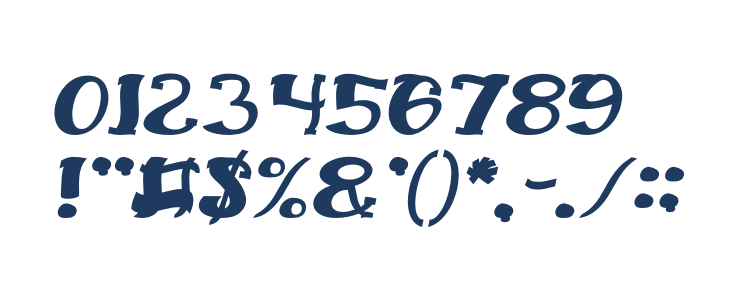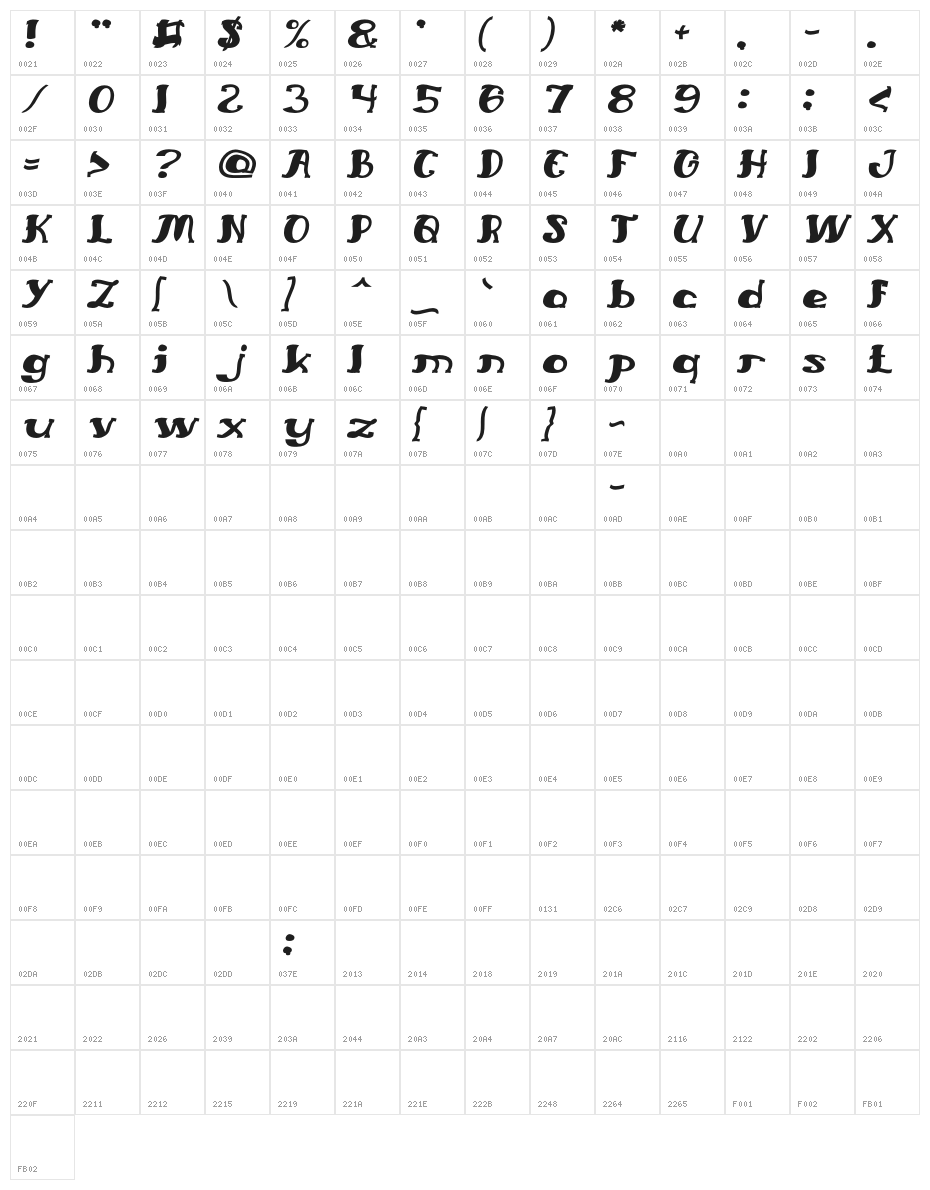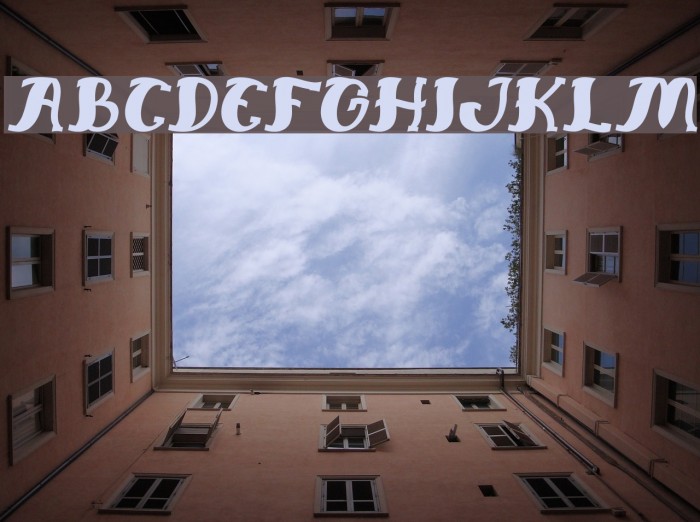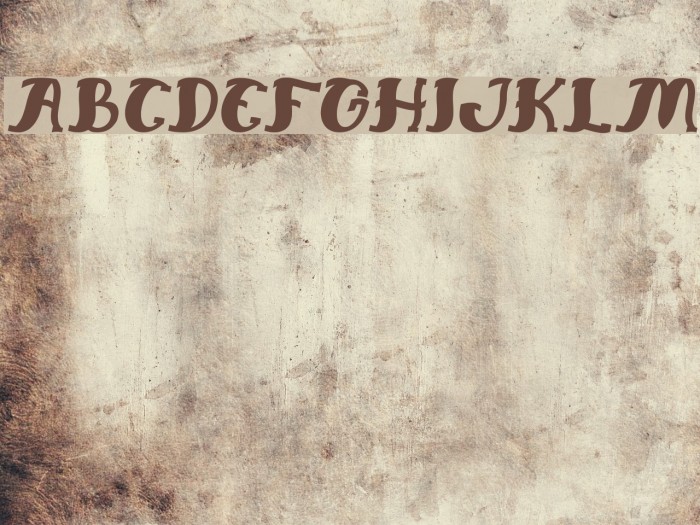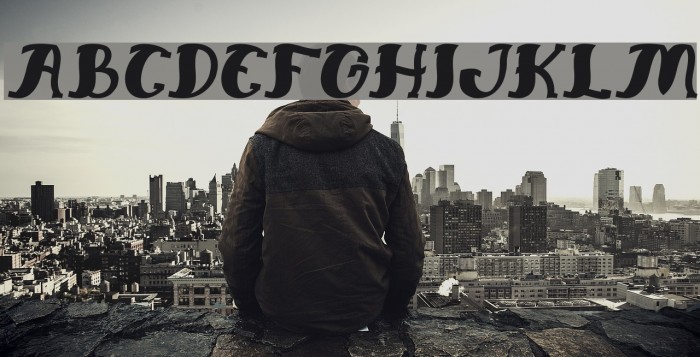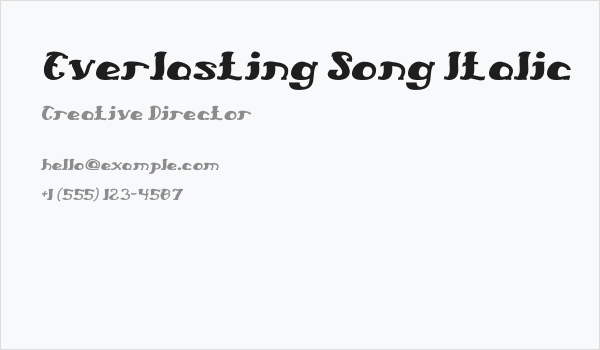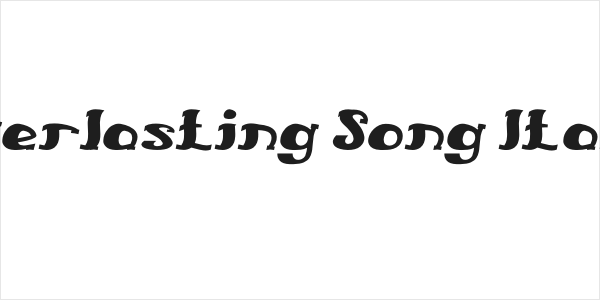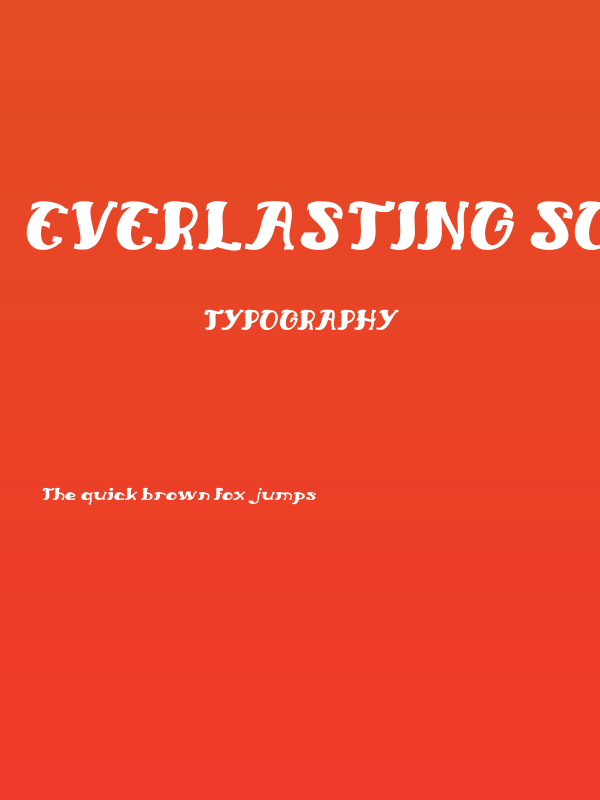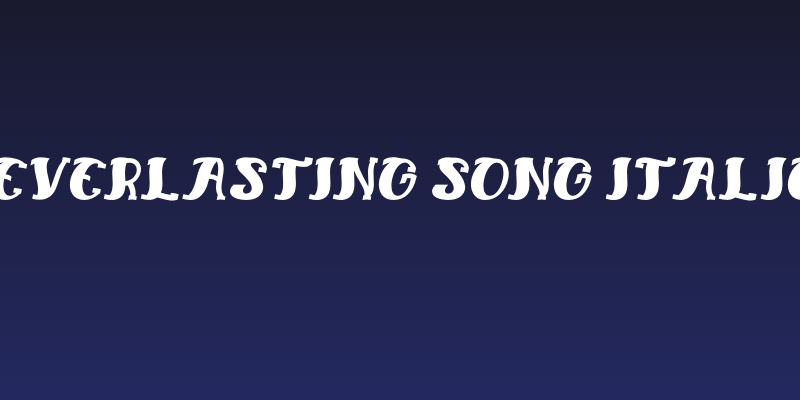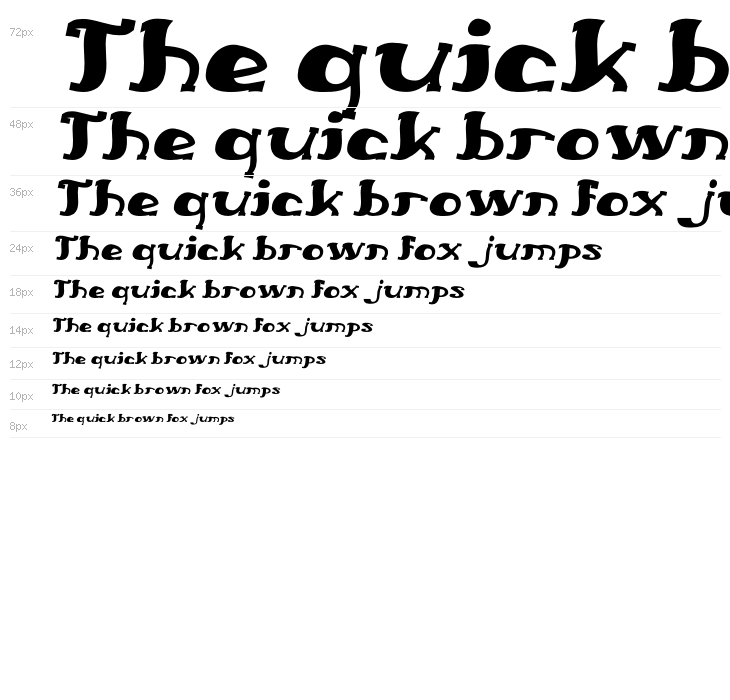
Everlasting Song Italic Font
Everlasting Song Italic Description
This font features a dynamic and expressive style with a distinct italic slant, giving it a sense of movement and fluidity. The characters are bold and have a playful, almost whimsical appearance, with varying stroke widths that add to its lively character. The uppercase letters are particularly striking, with unique flourishes and curves that make each letter stand out. The lowercase letters maintain a consistent style, complementing the uppercase with their own subtle quirks. Numbers and special characters follow the same design principles, ensuring a cohesive look across all glyphs. This font is ideal for projects that require a touch of creativity and flair.
| Use Case | Headlines, Logos, Artistic designs |
| Proposed Projects | Perfect for creative projects such as posters, invitations, branding, and artistic designs. |